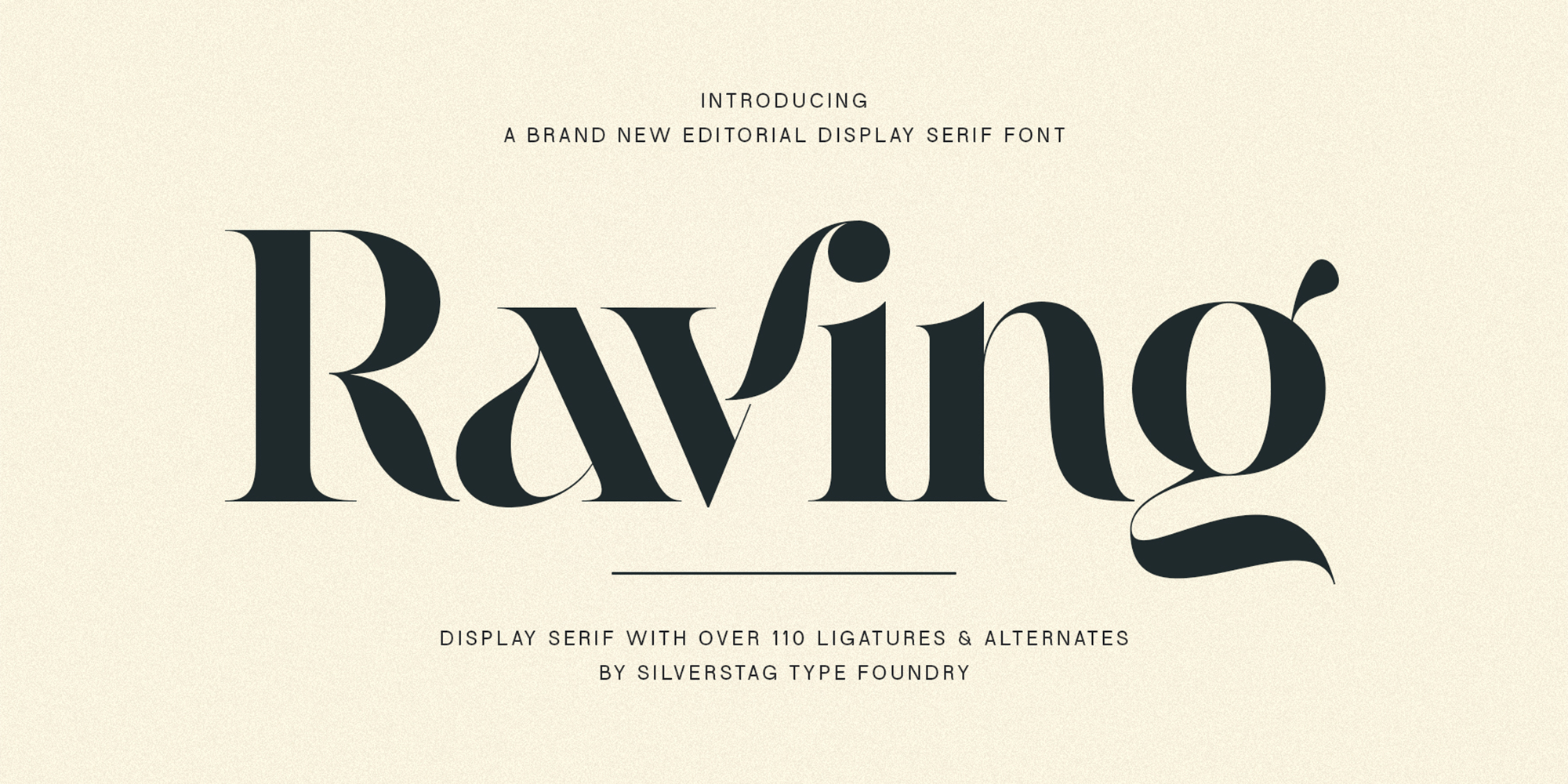
The Raving Display Font is a bold, energetic, and often experimental typeface, designed to make an unforgettable visual statement. Its distinctive forms, which might feature exaggerated serifs, unusual ligatures, fragmented characters, or a highly stylized aesthetic, make it an excellent choice for club flyers, music festival branding, fashion editorials with an edgy twist, video game titles, bold advertising campaigns, and any project that demands a vibrant and unconventional presence. Whether you’re crafting an eye-catching poster or a brand identity that pushes boundaries, this font will inject your project with raw excitement and unmistakable personality.
What makes the Raving Display Font so exciting is its audacious design, engineered specifically for maximum visual impact rather than long-form readability. It's perfect for designers who want to convey a sense of dynamism, rebellion, or a cutting-edge artistic sensibility. This font stands out by offering a unique visual voice that commands attention and evokes strong feelings, making any text it graces feel monumental and unforgettable. While it might be challenging for extensive body copy, its strength lies in its ability to create powerful, memorable headlines and branding elements that resonate with a youthful, energetic audience.
The Raving Display Font typically offers a focused set of features to support its distinctive style. While specific offerings may vary depending on the font package, you can generally expect to find a Regular weight, often accompanied by a Bold or Heavy version to amplify its inherent strength and imposing presence. Some versions of the Raving Display Font Free Download might also include a variety of alternate characters, stylistic ligatures, or unique decorative elements designed to enhance its display qualities and provide more creative flexibility for truly unique compositions. These features ensure that the Raving Display Font can be adapted to almost any design requirement where a loud, unconventional, and highly impactful statement is desired, maintaining its consistent energetic charm throughout your project.